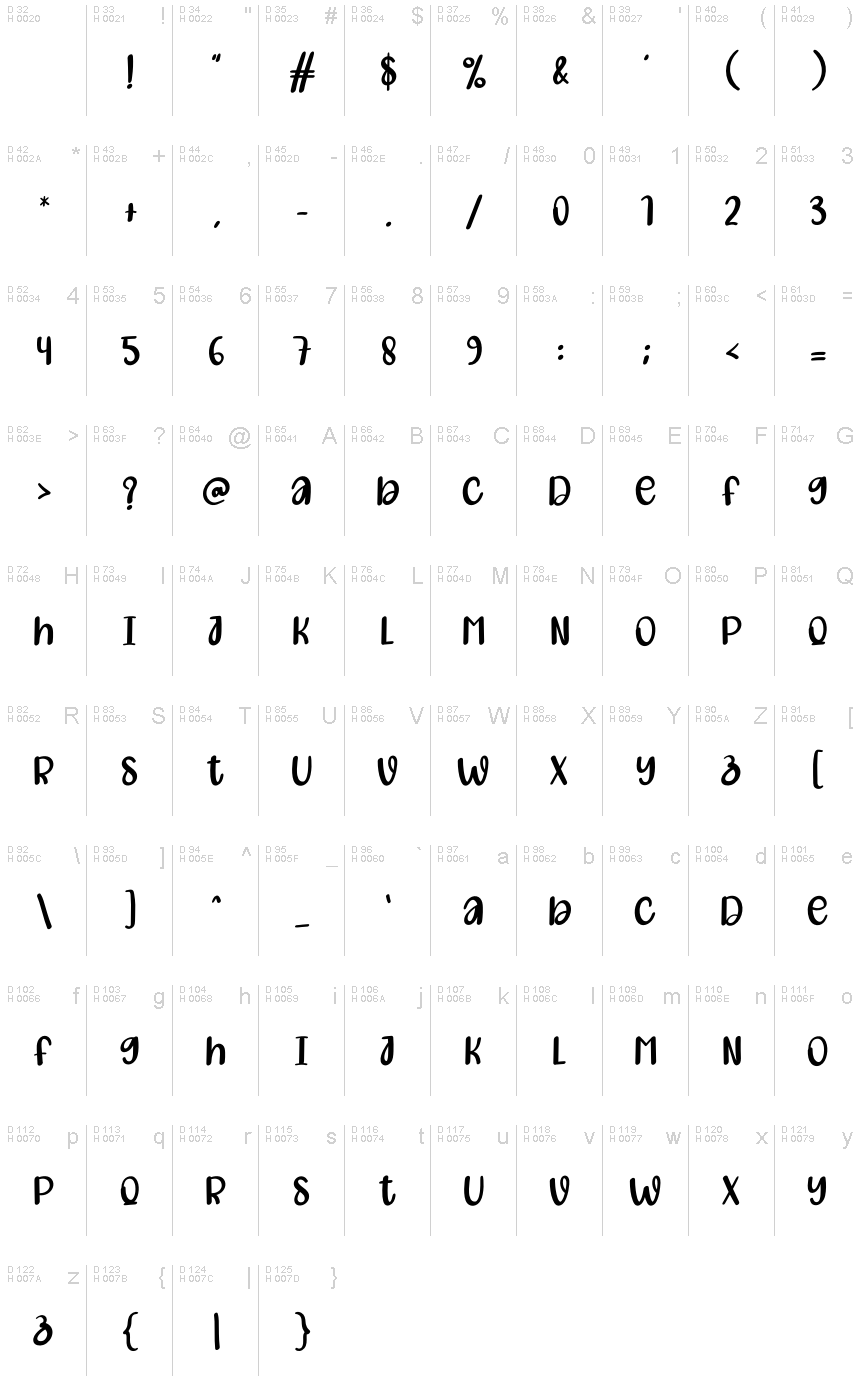
Simple Creative
Simple Creative is a delightful handwritten font that exudes a warm, friendly charm. Crafted with a smooth, brush-like quality, this font effortlessly blends whimsy and elegance, making it an ideal choice for a variety of design applications.
The flowing, organic lines of Simple Creative lend a sense of playfulness and approachability, making it a perfect fit for wedding invitations, greeting cards, and other design projects that require a touch of playfulness. Its versatility shines through, as the font's unique personality can seamlessly transition from personal stationery to branded marketing materials, infusing each piece with a endearing, heartfelt character.
Whether you're crafting a charming invitation or seeking to add a personal touch to your design, Simple Creative's captivating style is sure to capture the attention and admiration of your audience.